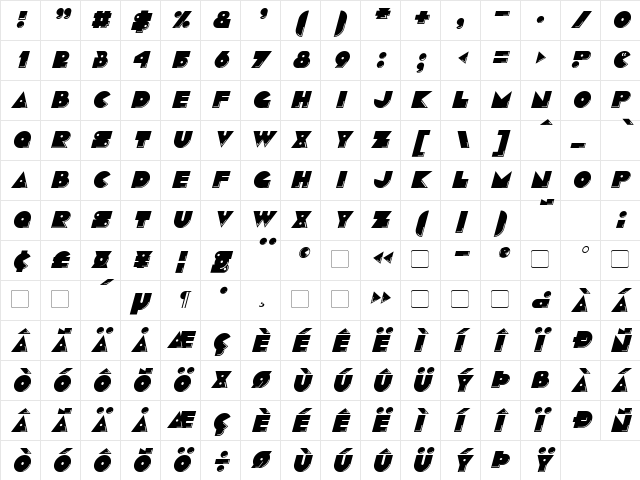
Pacmania Italic
Foundry: Pixel Sagas
Designer: Neale Davidson
Design Context for Pacmania
Pacmania is a composed and adaptable typeface that performs quietly and consistently across a wide range of design contexts. The slanted form adds forward momentum and visual energy.
Pro Tip: Use Pacmania for emphasis, pull quotes, and subheadings where its slanted energy can add rhythm to the layout.